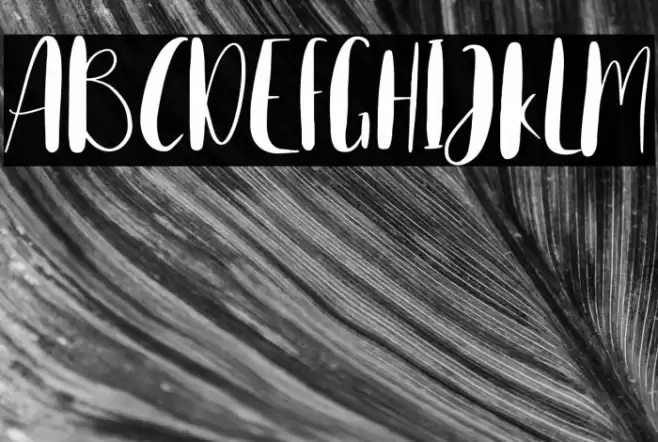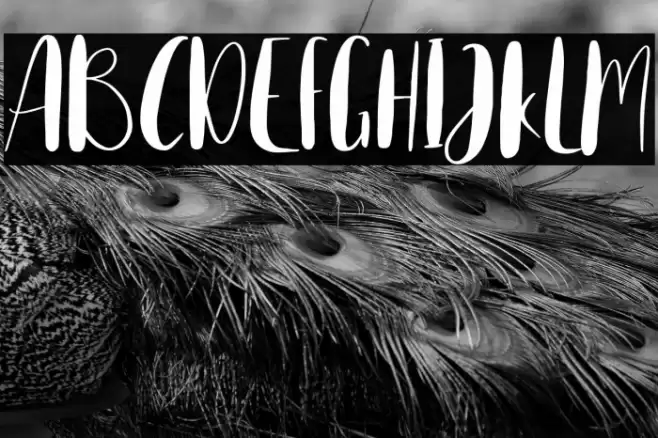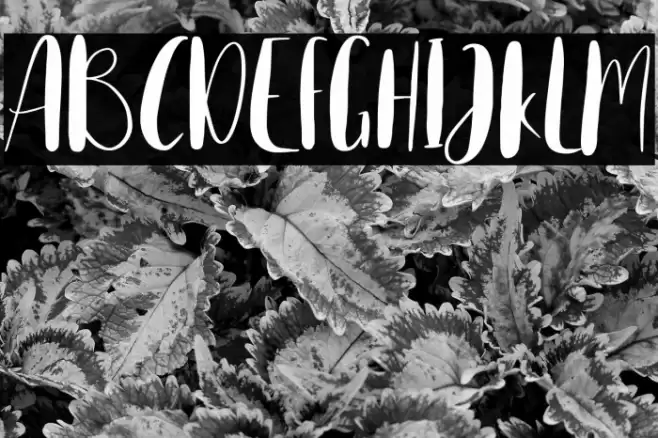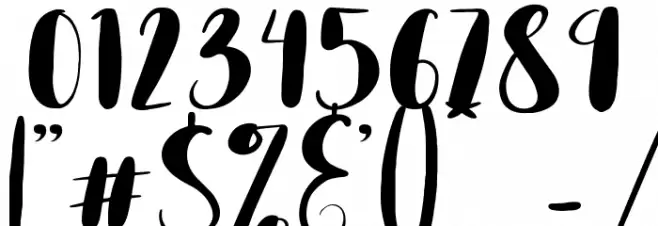
Home Spring Description
This font exhibits a lively and expressive handwritten style, characterized by its fluid, cursive strokes and varying line thickness. The uppercase letters are bold and dynamic, with a playful yet elegant flair, while the lowercase letters maintain a consistent flow, enhancing readability. The numerals and special characters complement the overall style with their unique, artistic forms. This font's design is perfect for adding a personal touch to any project, making it suitable for creative and decorative purposes.
A lively, expressive handwritten font with fluid cursive strokes from Uncategorized fonts.
- Font: Home Spring
- Proposed Projects: Ideal for wedding invitations, greeting cards, branding, and social media graphics.
- Use Case: Logos, Headlines, Invitations